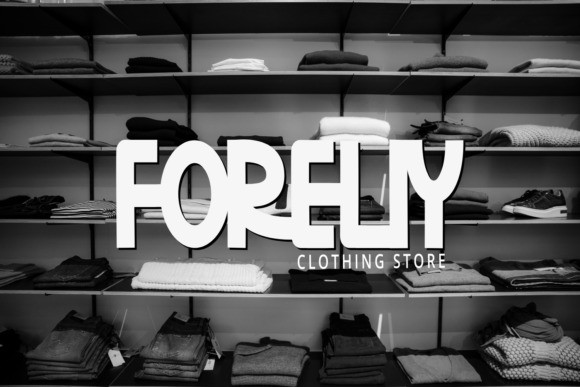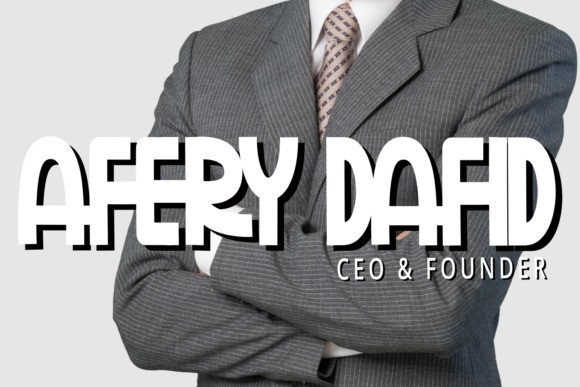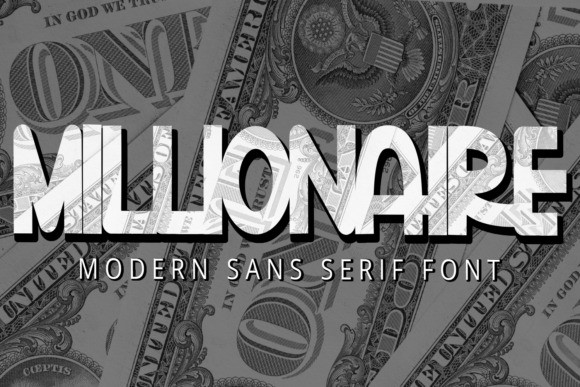
Millionaire Font
Millionaire Font is a sans serif font. Millionaire is perfectly suited for traditional media and web. Great for crafters and graphic artists alike. Its playfulness makes it great for a creative project, be it inspirational wall posters or for communicating your brand.